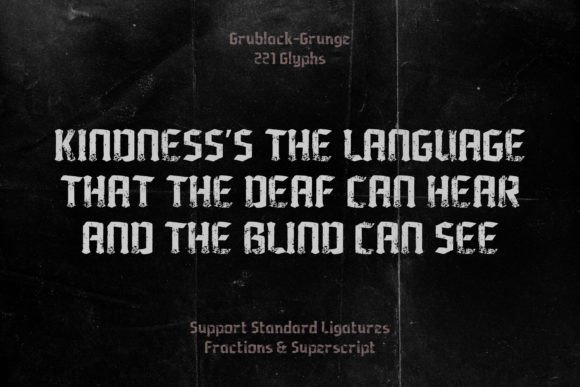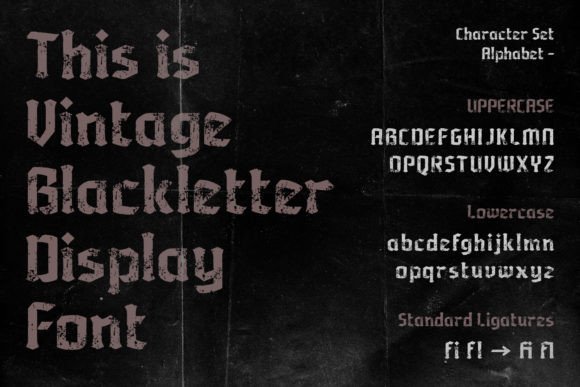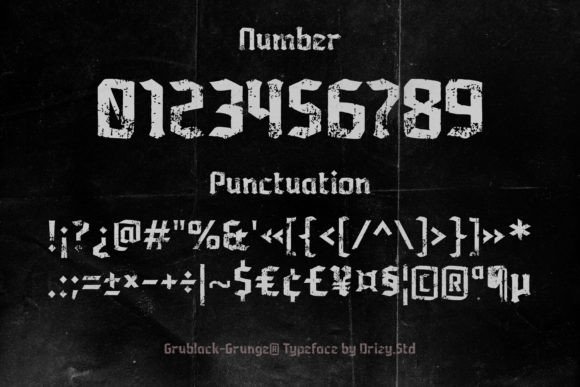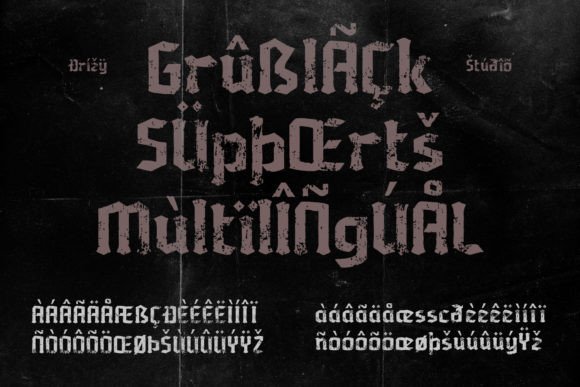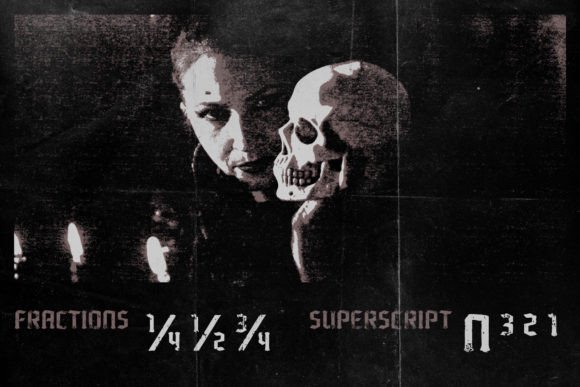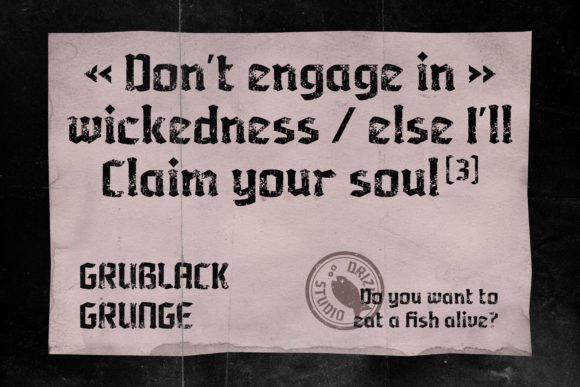
Discover the Timeless Elegance of Grublack Font: A Vintage Blackletter Typeface
In the world of typography, few fonts manage to capture the essence of traditional blackletter style while infusing it with a vintage flair. Grublack Font is one such remarkable typeface that stands out for its intricate design and ornate details, evoking a sense of historical significance. This stunning font is perfect for designers and crafters looking to add a touch of old-world charm to their projects. Whether you’re working on branding, signage, editorial content, or any other design endeavor, Grublack Font is sure to add a distinctive character and elegance to your work.
The Essence of Blackletter Typography
Blackletter typography, with its dramatic flourishes and deep strokes, has been a cornerstone of classic design for centuries. This style, which originated in Europe during the Middle Ages, is characterized by its dense, complex structures and intricate details. Blackletter fonts are often associated with formal and traditional contexts, conveying a sense of heritage and reliability. Grublack Font takes these traditional elements and adds a vintage twist, making it uniquely versatile for modern design applications.
What Makes Grublack Font Stand Out
Grublack Vintage Blackletter Typeface is not just another font; it’s an experience. Its design meticulously balances historical authenticity with aesthetic appeal. Here are some features that make Grublack Font a standout choice:
- Intricate Design: The font boasts complex and detailed letterforms that are characteristic of high-quality blackletter typefaces.
- Vintage Flair: Grublack adds a unique vintage touch to traditional blackletter typography, making it suitable for projects that require a classic yet distinctive look.
- Elegance and Readability: Despite its ornate nature, Grublack Font maintains a level of readability that is crucial for both print and digital media.
- Versatility: This font can be used across various design projects, from luxury branding and event signage to editorial content and digital media.
Applications of Grublack Font
The versatility of Grublack Font makes it an excellent choice for a wide range of design projects. Here are some of the areas where this font truly shines:
- Branding: Use Grublack Font to give your brand a touch of elegance and heritage. It’s perfect for logos, letterheads, and packaging designs that require a classic yet distinctive look.
- Signage: Whether you’re designing vintage-style posters, billboards, or point-of-sale displays, Grublack Font adds a level of sophistication and charm that’s hard to achieve with more modern typefaces.
- Editorial Content: For editorial projects such as magazines, newspapers, and books, Grublack Font can add a thematic element to your design, especially for historical or literary pieces.
- Digital Media: In the digital realm, Grublack Font can elevate your website, social media graphics, and digital advertising, setting your content apart with its unique aesthetic.
Tips for Using Grublack Font Effectively
To make the most of Grublack Font, consider the following tips:
- Pair with Simpler Fonts: When using Grublack Font for headings or titles, pair it with a simpler, more modern font for body text to create visual contrast.
- Adjust Size and Weight: Experiment with different sizes and weights of Grublack Font to add hierarchy and depth to your design.
- Emphasize Details: Take advantage of the font’s intricate details by using it in large formats where these elements can be fully appreciated.
Grublack Vintage Blackletter Typeface is more than just a font; it’s a design statement. With its intricate design, vintage flair, and elegant aesthetic, Grublack Font brings a touch of old-world charm to any project. Whether you’re a designer looking to add depth and character to your work or a crafter seeking the perfect typography for your creations, Grublack Font is an exceptional choice. Explore the possibilities of Grublack Font today and discover how it can elevate your designs to new heights of sophistication and elegance.